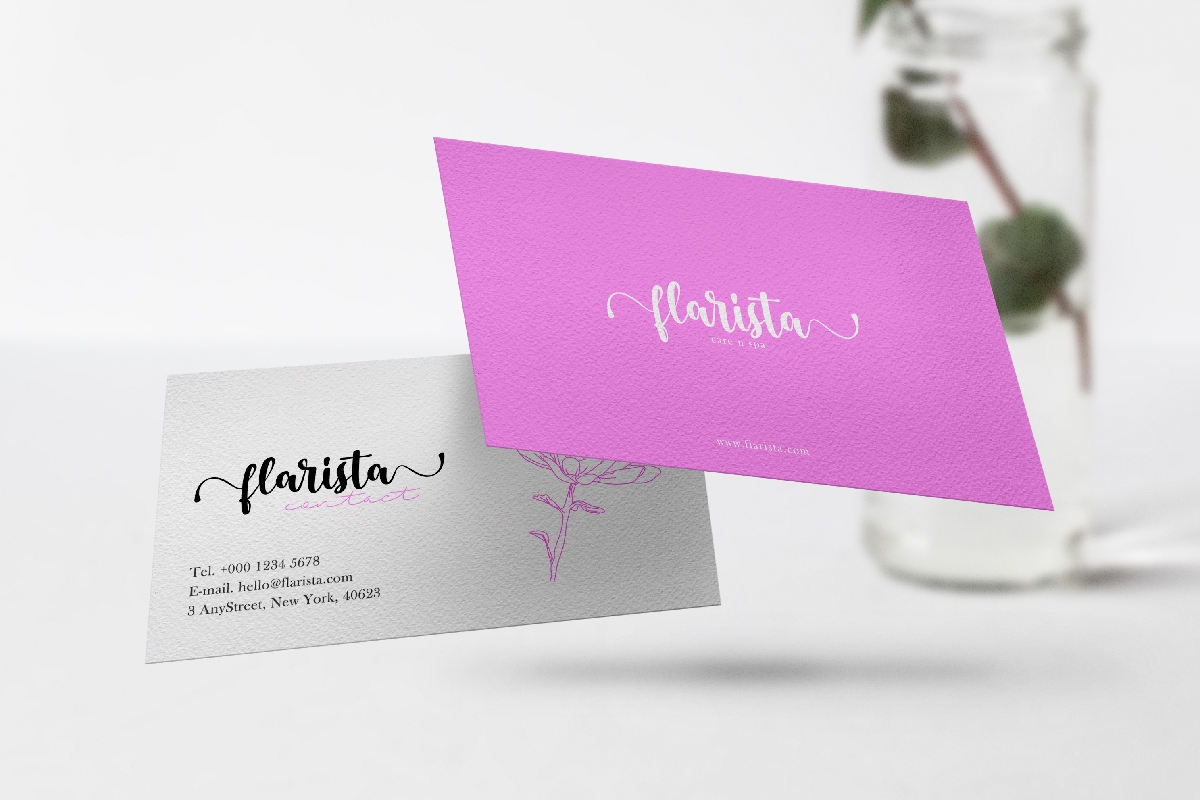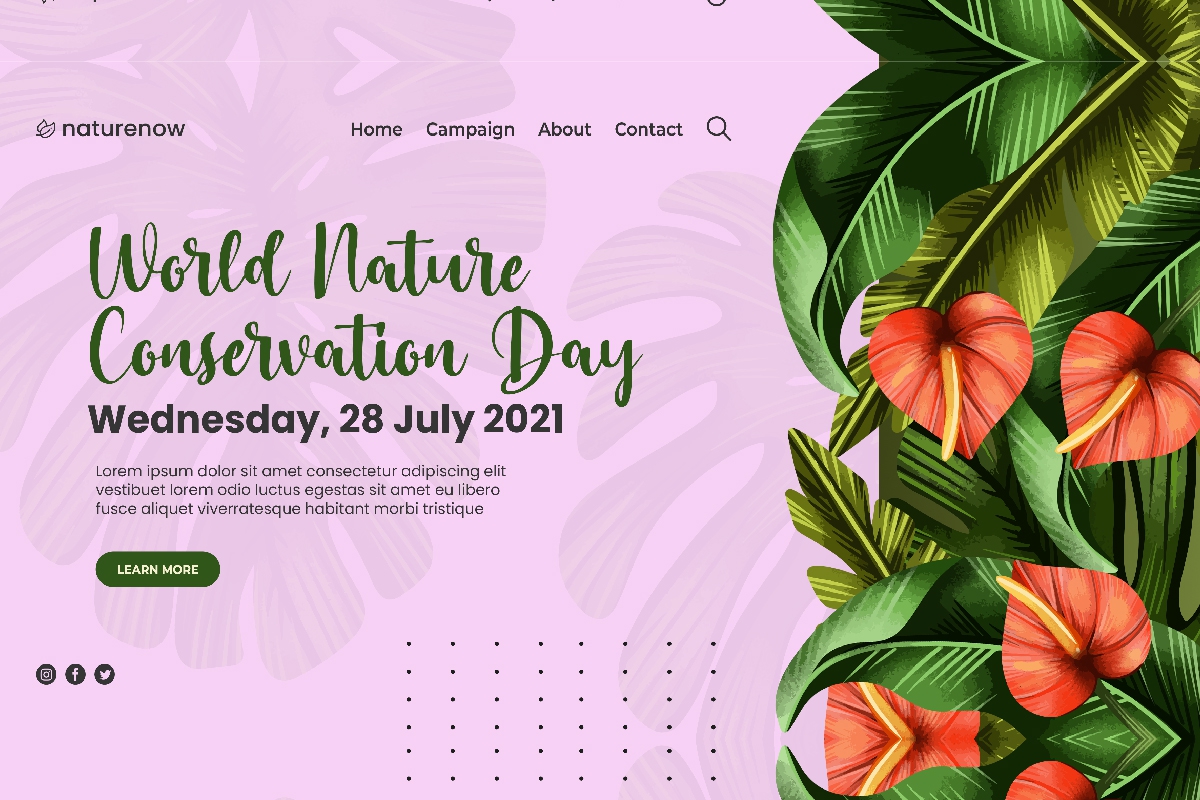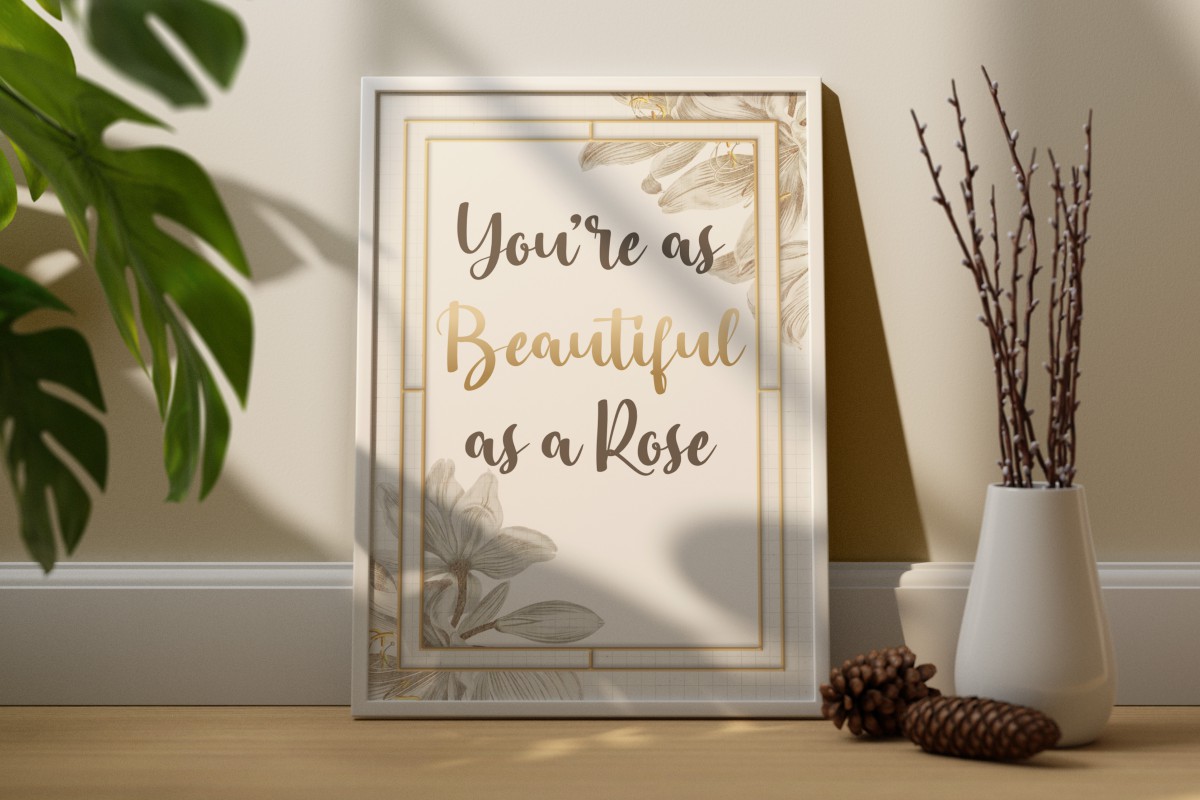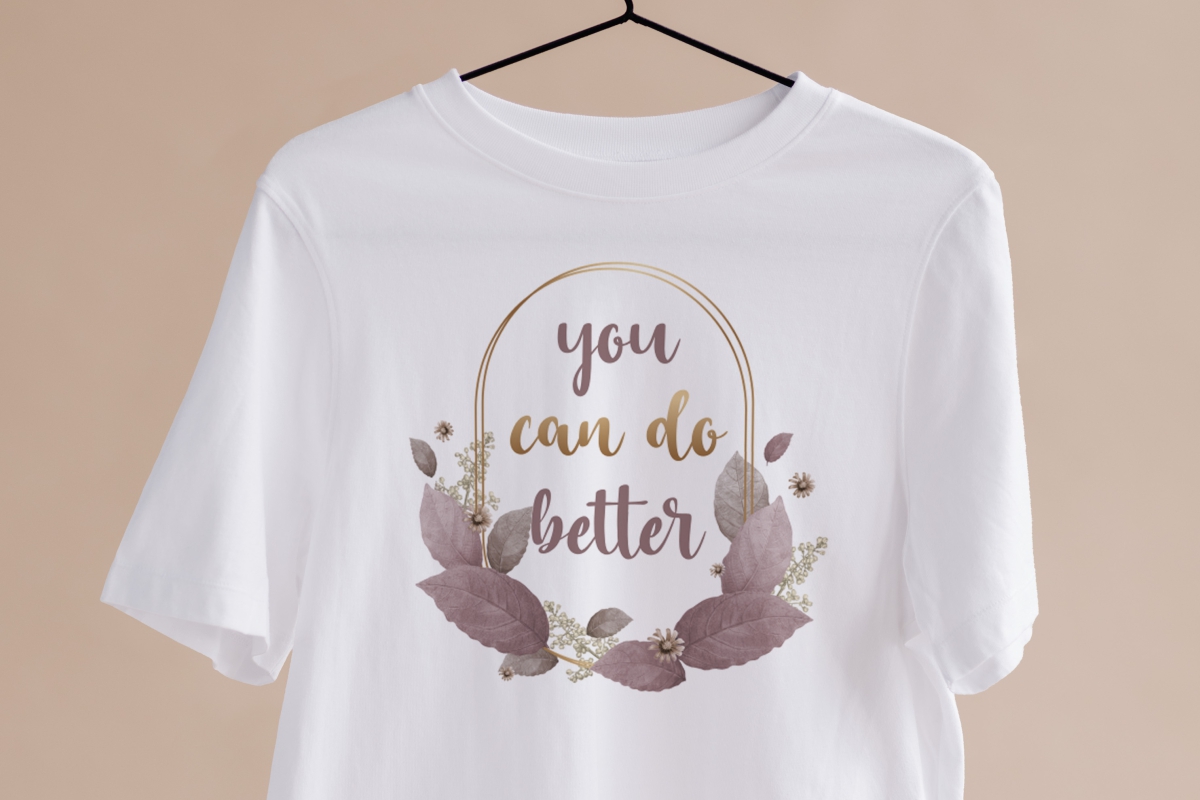
Before Thirty Font
Before Thirty Script Font
It’s a beautiful script font with handwriting style. The lines in this font flow smooth and beautifully, giving it an eye-catching look. Use this font to enhance your projects, such as business card, flyer, invitation, label, packaging design, quotes, screen printing, signage, website, etc.